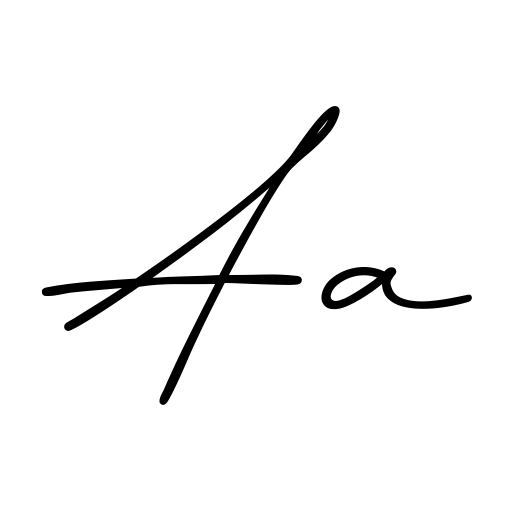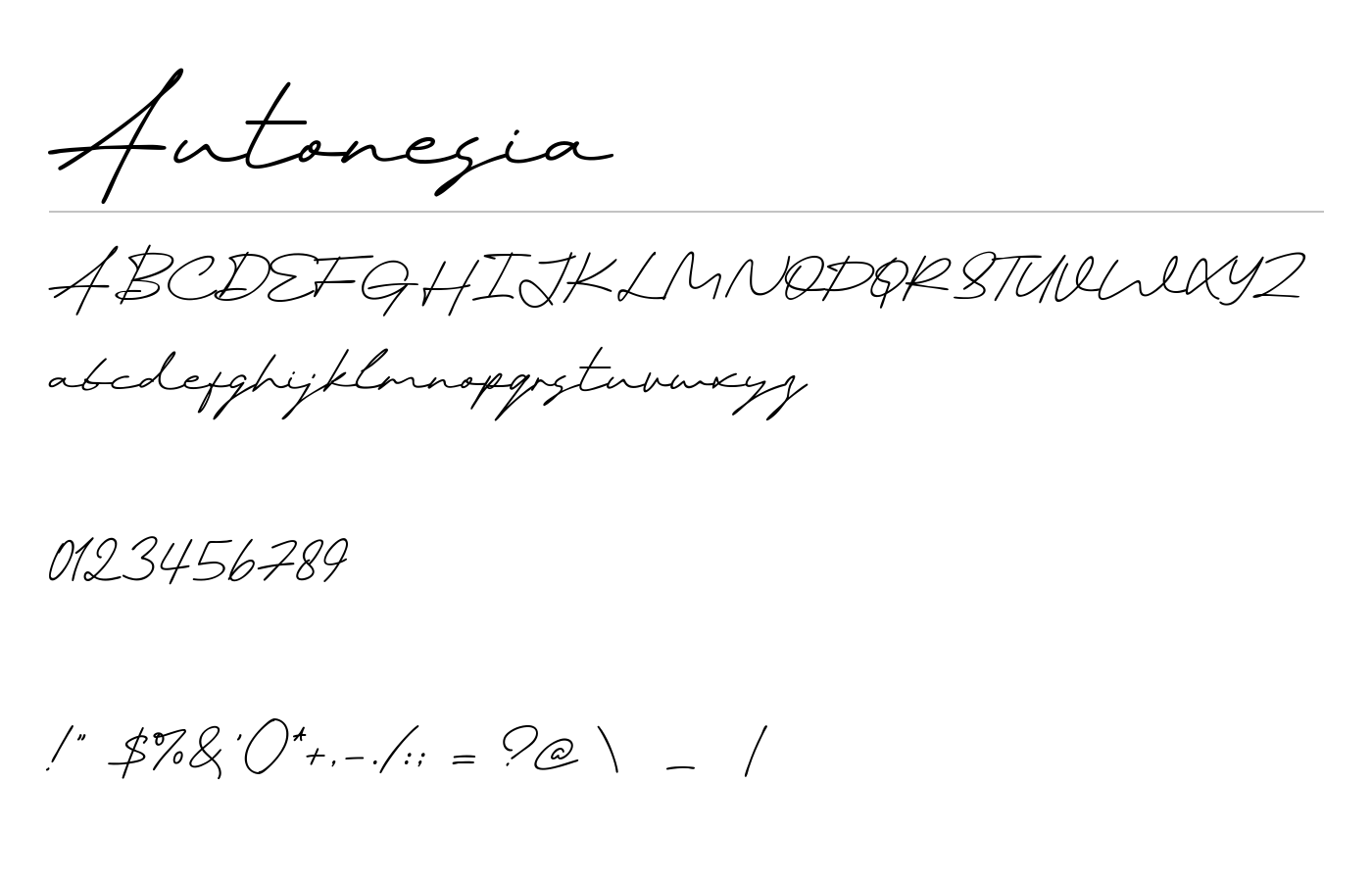
Autonesia is a delicate, handwritten script font characterized by its thin, fluid strokes and elegant, slightly irregular letterforms that mimic natural penmanship. Its light weight and airy appearance make it perfect for adding a personal, artistic touch to invitations, branding, and editorial design, where a refined yet approachable style is desired. This font works best in contexts that benefit from a sophisticated, intimate feel, lending charm and authenticity to creative projects.
Autonesia Font
About Autonesia Font